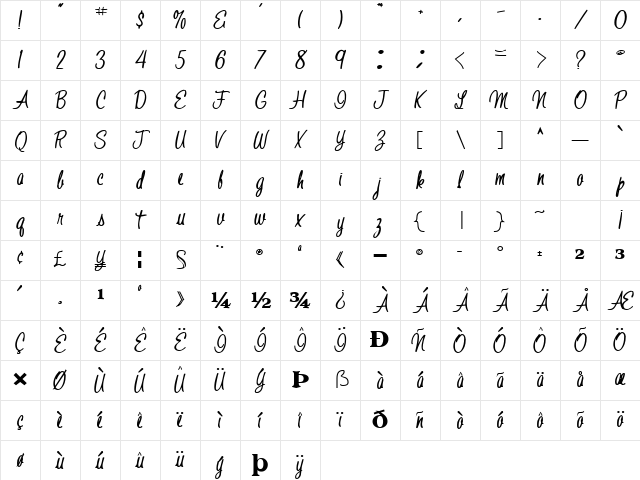
Complete JelindaFont52 Bold glyph index. Displaying only characters natively supported by JelindaFont52 Bold font.
JelindaFont52 is a composed and adaptable typeface that performs quietly and consistently across a wide range of design contexts. Its bold stroke weight gives it real presence on the page.